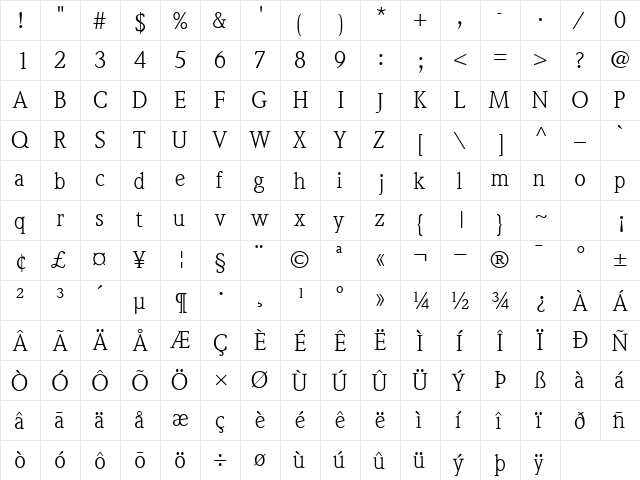
QuintessenceSSK Regular
Design Context for QuintessenceSSK Typeface
QuintessenceSSK offers clean, dependable letterforms without strong stylistic allegiance, making it a practical choice for designers who need flexibility.